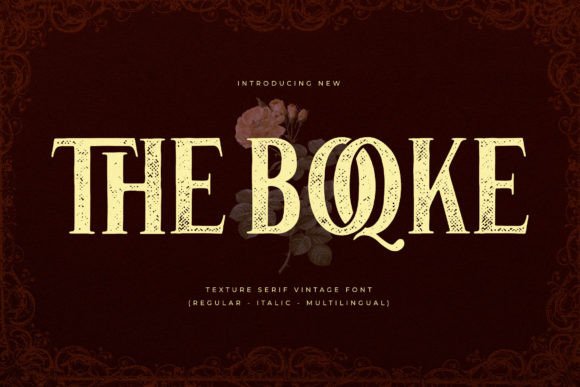
Behold, The Boqke Typeface, a serif masterpiece that exudes both modern flair and classic elegance. This font is not just a collection of letters; it's an artistic expression, a stroke of genius that will transform your designs into visual symphonies.
Picture this: a logo that radiates sophistication, a book title that dances with intrigue, a fashion brand that whispers luxury, a magazine that oozes allure. The Boqke Typeface is your magic wand, turning ordinary words into enchanting narratives.
Unleash your creativity and let The Boqke Typeface guide you through a journey of visual enchantment. Its meticulously crafted characters, with their delicate serifs and graceful curves, will elevate your designs to new heights of artistry.
The Boqke Typeface is a versatile chameleon, effortlessly adapting to a myriad of design styles. Whether you seek a touch of timeless elegance or a dash of contemporary chic, this font will effortlessly harmonize with your vision.
Experience the ease and convenience of The Boqke Typeface. Encoded with PUA, this font grants you effortless access to a treasure trove of glyphs and ligatures, empowering you to add intricate details and flourishes to your designs.